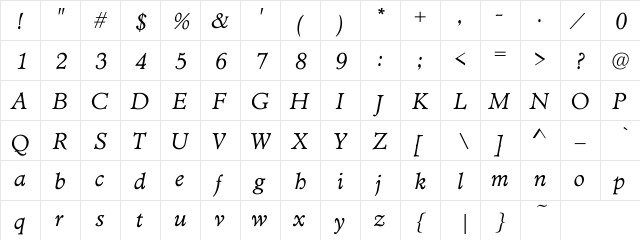
Gutenburg Italic Regular
Design Context for Gutenburg Italic Typeface
Gutenburg Italic takes a measured approach to typography — its balanced proportions and neutral character make it a reliable workhorse for both digital and print work. The slanted form adds forward momentum and visual energy.
Pro Tip: Try Gutenburg Italic for annotation and caption copy alongside an upright companion — the contrast in angle creates a dynamic but ordered typographic system.